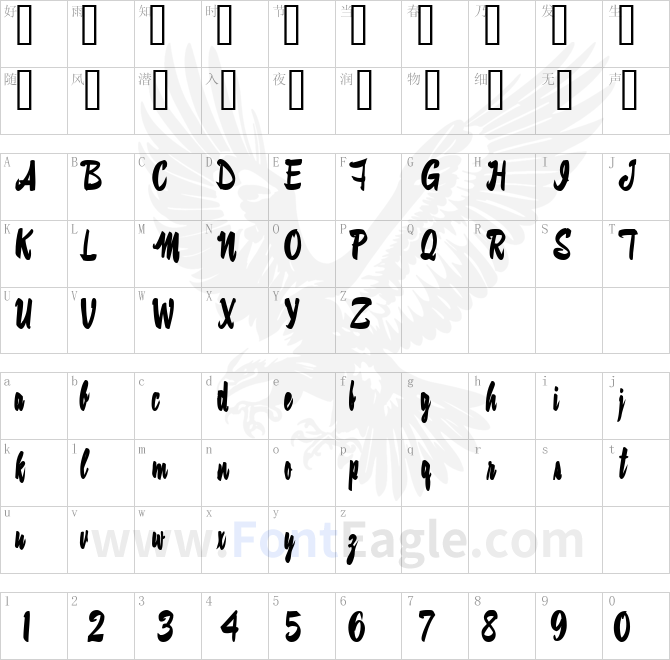
- Font name:ConiScriptSSK
ConiScriptSSK-Bold is a great font, widely used in graphic design, single-page menu design, poster design and other fields, and is deeply loved by designers.ConiScriptSSK-Bold download.